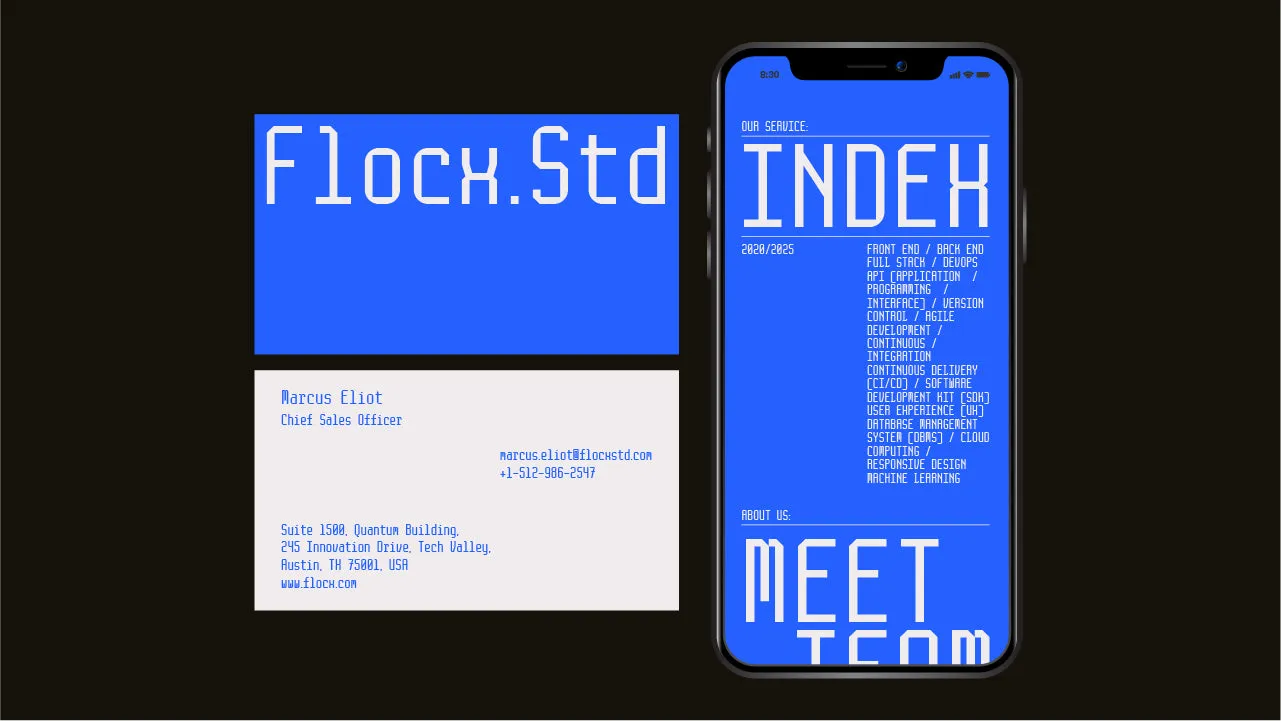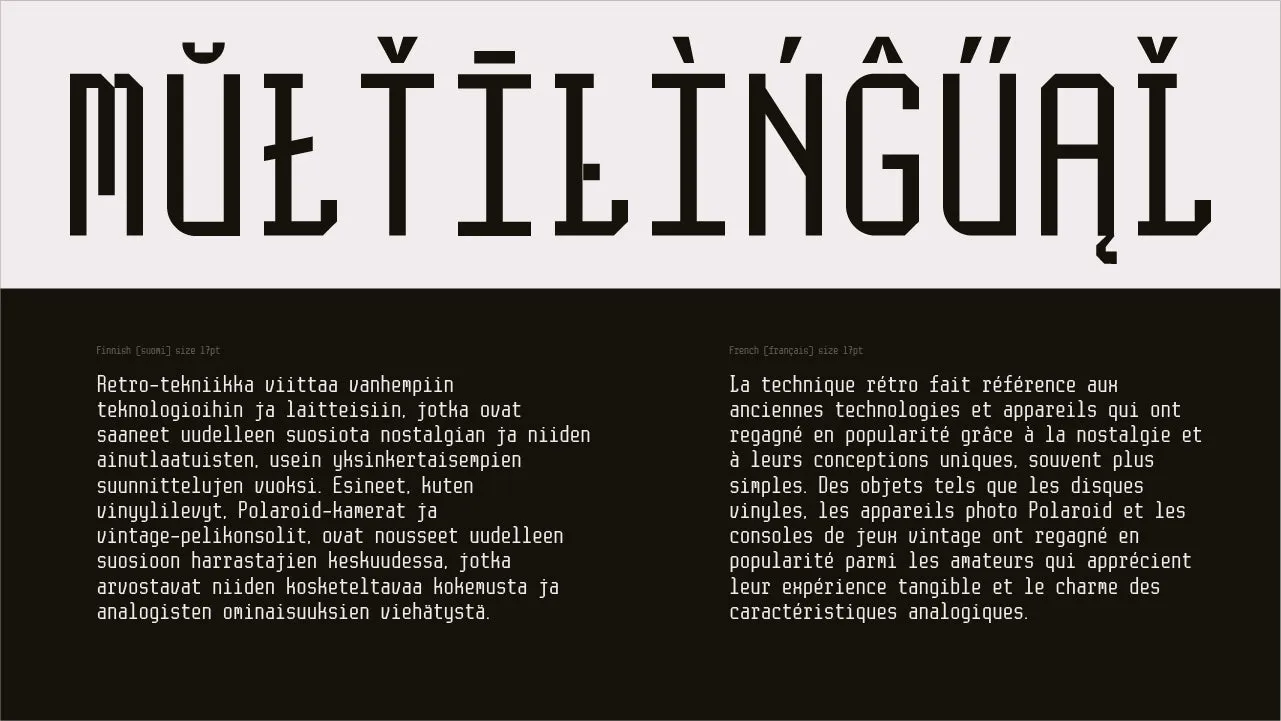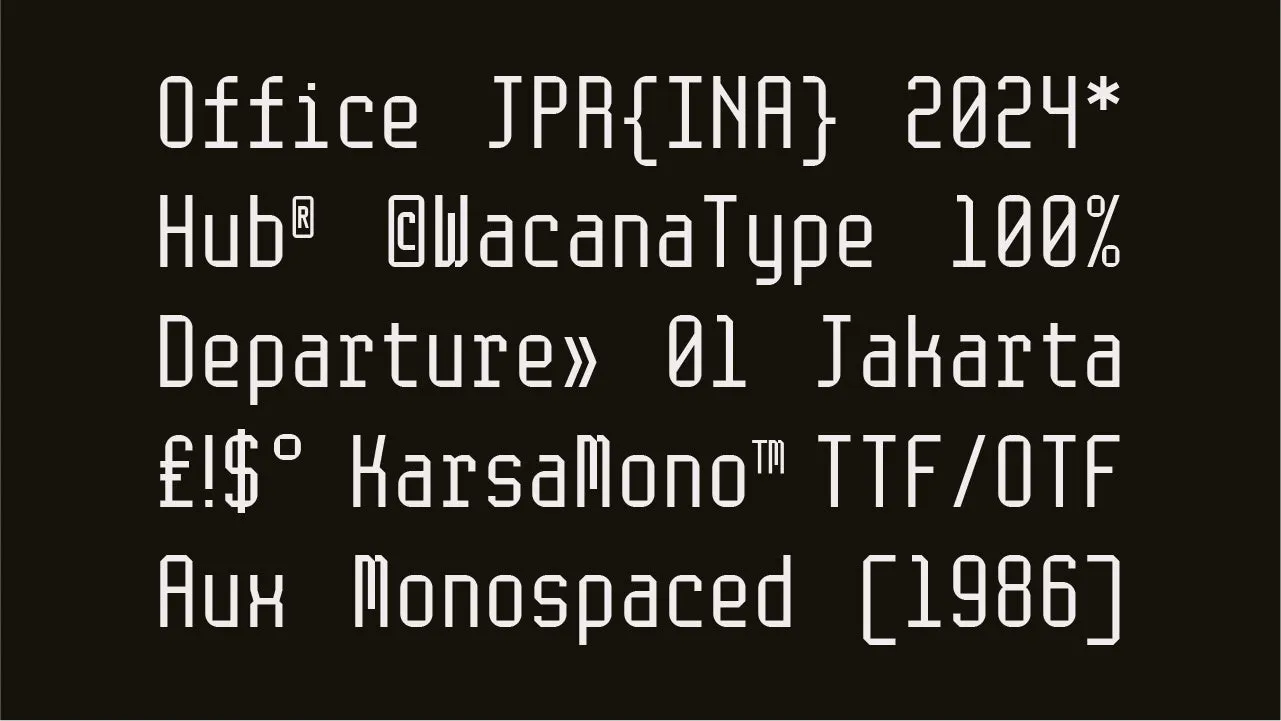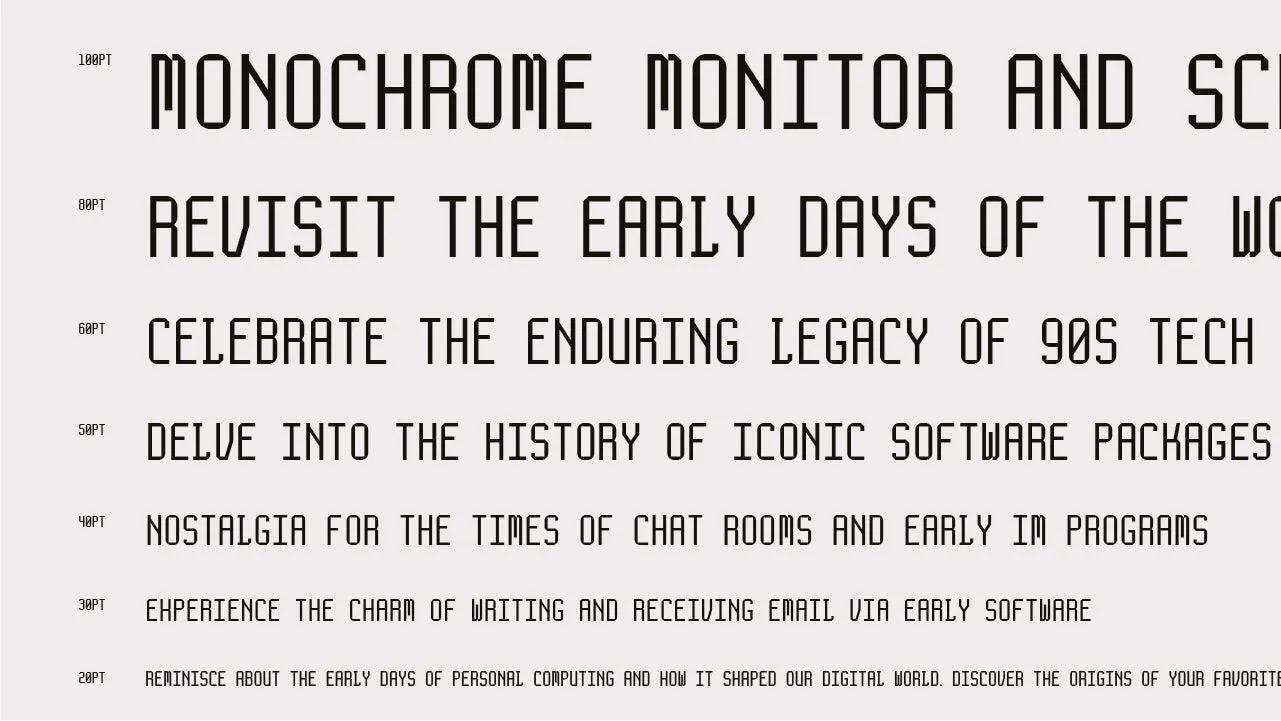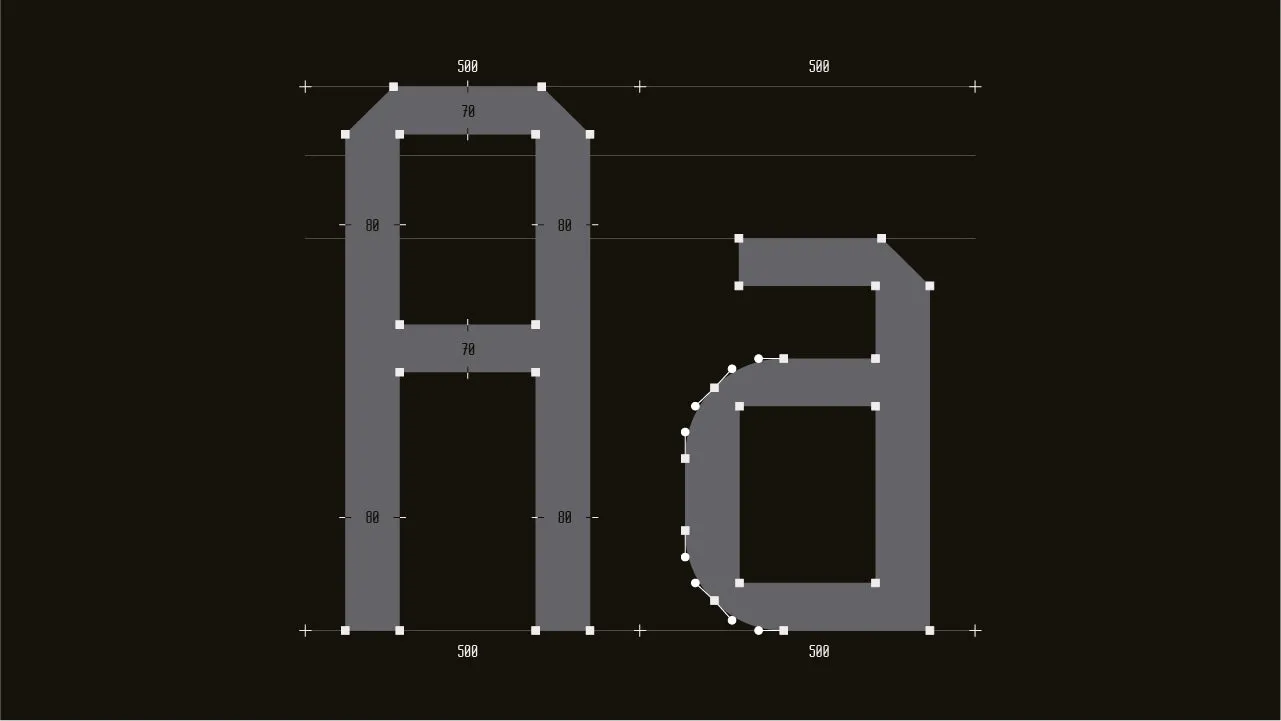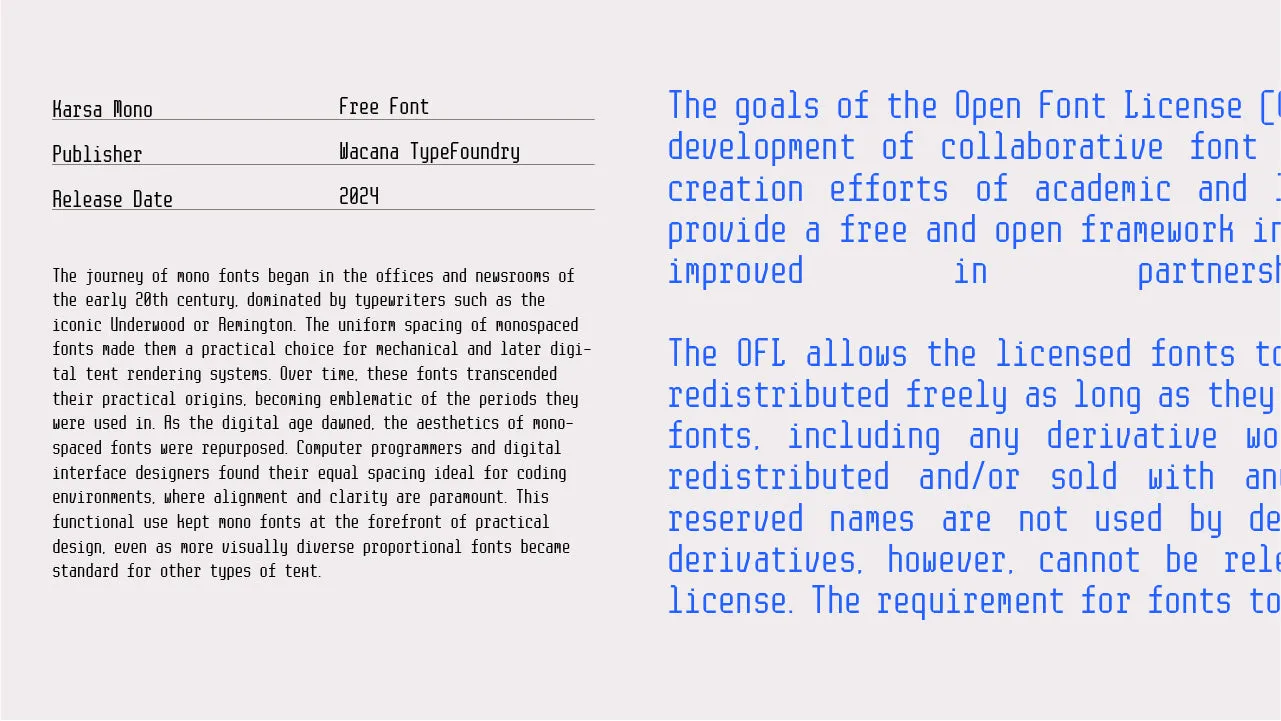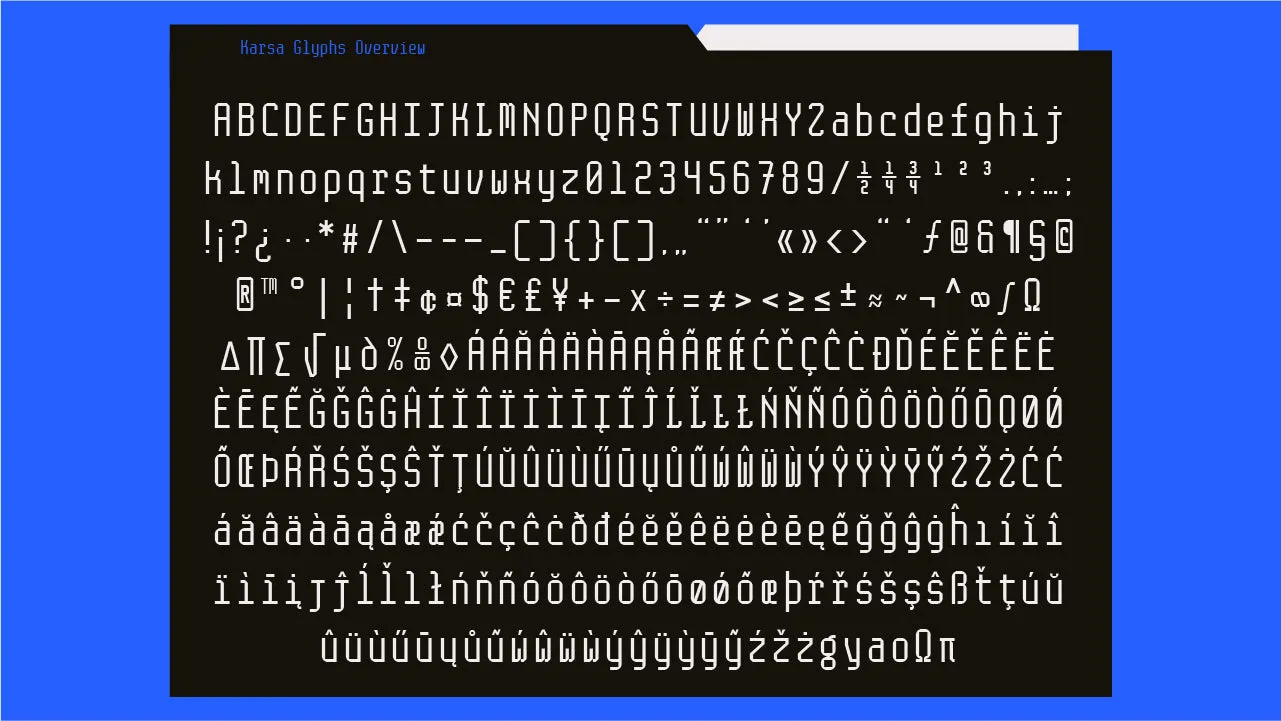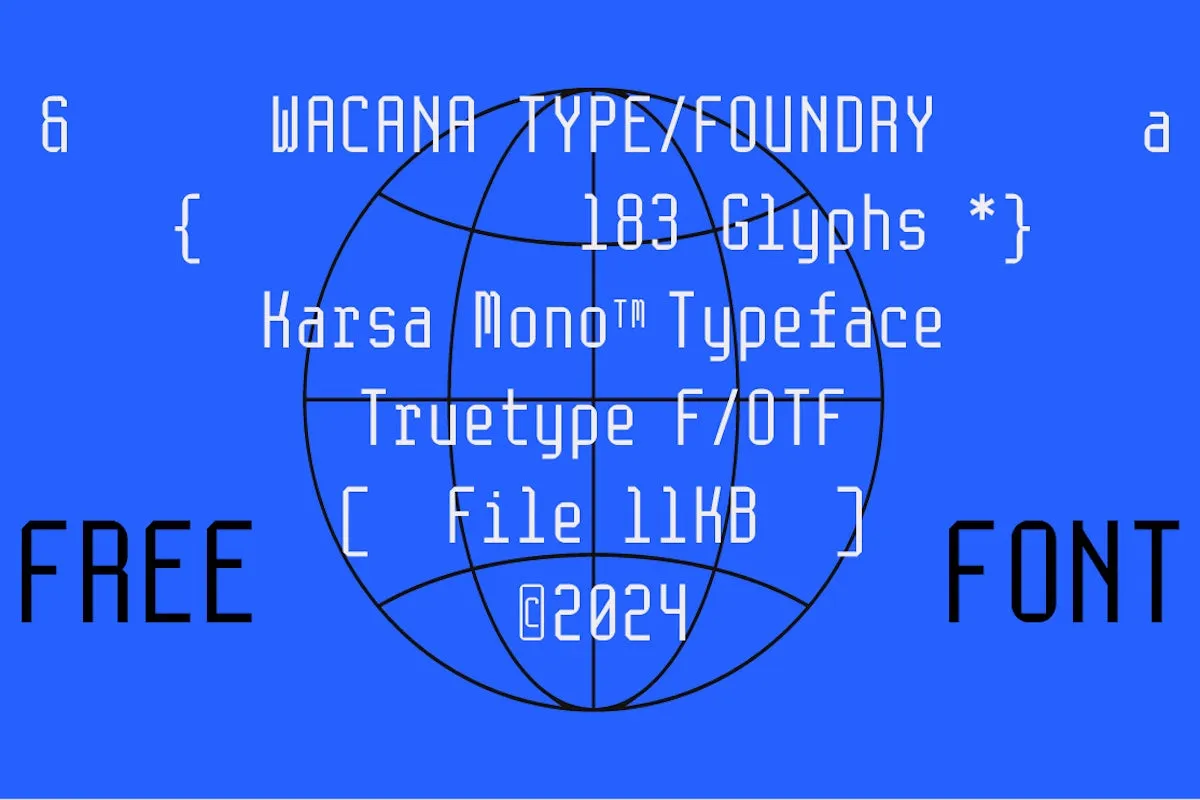
WT Karsa Mono - Free Font
Karsa Mono is the first font created by . Its name is derived from the Javanese language and has various associations with desires or intentions, as well as the will to achieve them.
The aim of this monospace typeface is to bring a fresh perspective and spirit to the table. Karsa Mono™ is comprised of characters with a fixed width, giving it a rigid form that is softened by the combination of round corners and diagonal 45° lines.